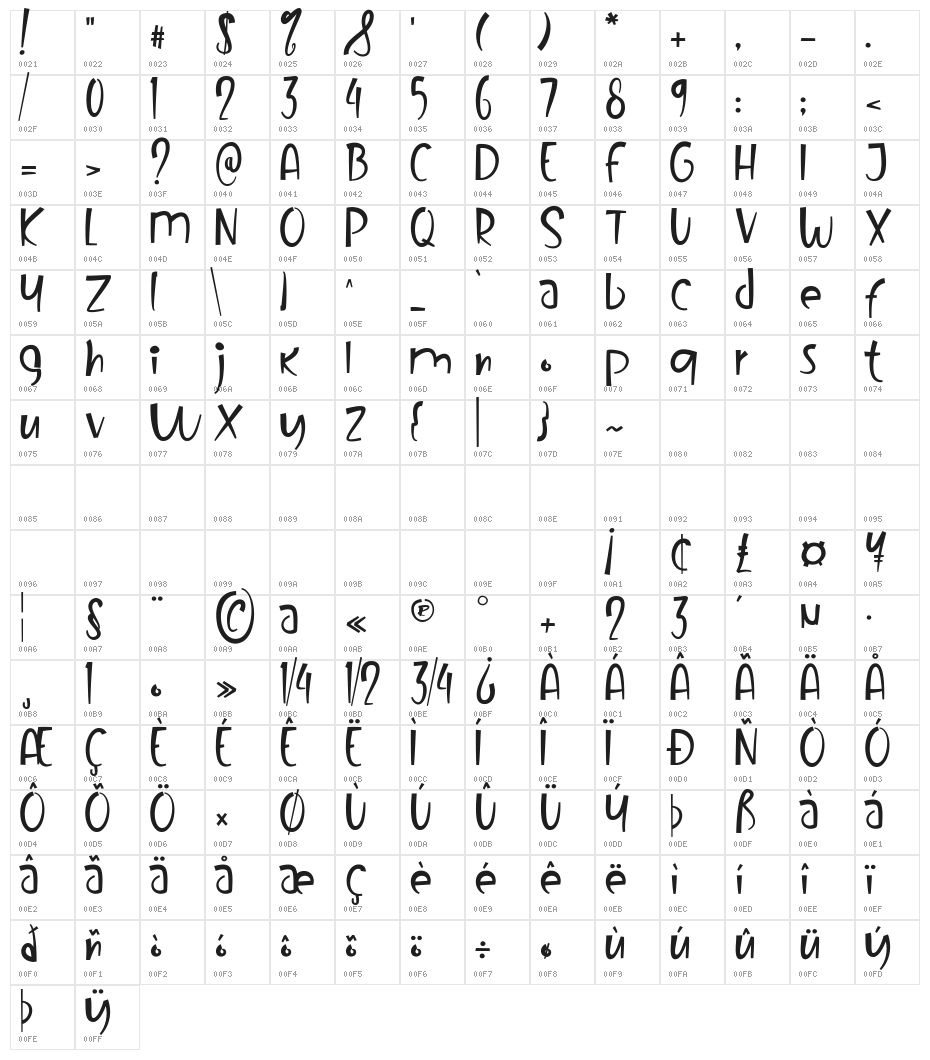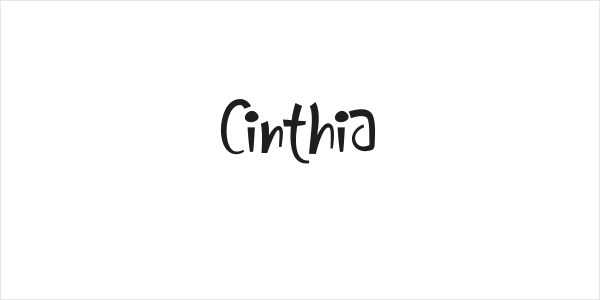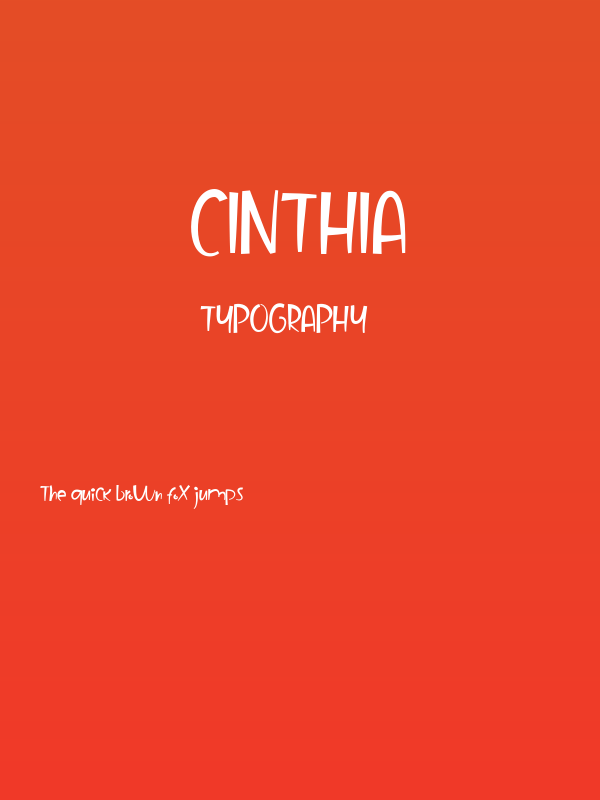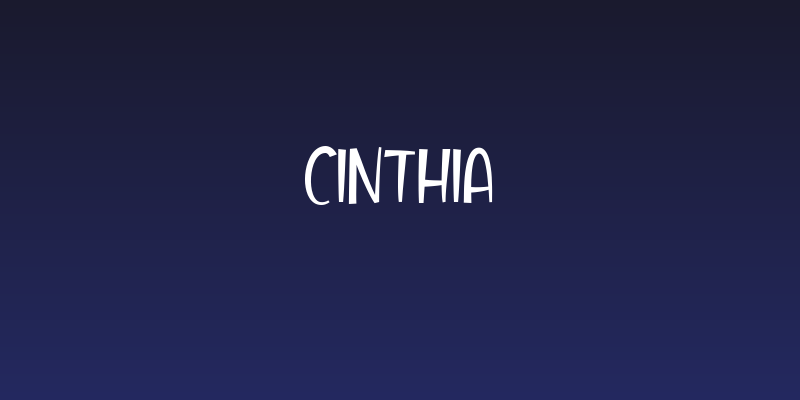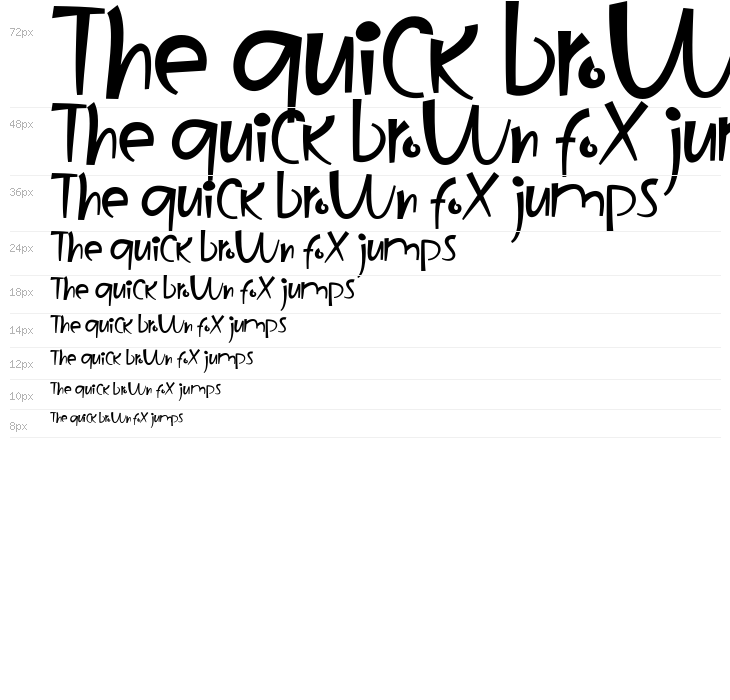
Cinthia Font
Cinthia Description
This font features a playful and whimsical design, characterized by its irregular and flowing letterforms. The uppercase letters are bold and slightly condensed, with a hand-drawn quality that adds a sense of fun and creativity. The lowercase letters maintain this playful style, with some characters exhibiting unique and unexpected curves. The numerals are dynamic and lively, complementing the overall aesthetic. Special characters are integrated seamlessly, enhancing the font's versatility. This font's distinctive style makes it suitable for projects that require a touch of personality and flair.
| Proposed Projects | Ideal for children's books, creative branding, playful posters, and artistic invitations. |